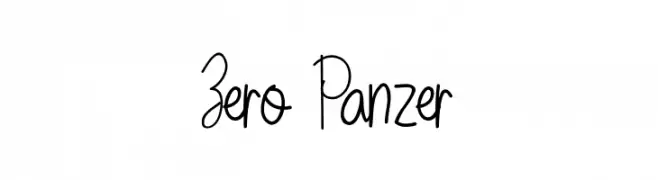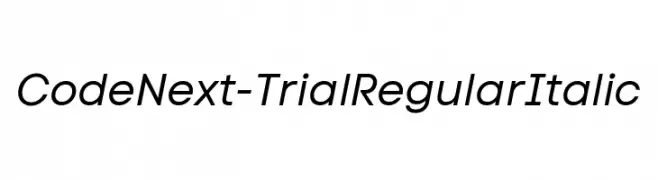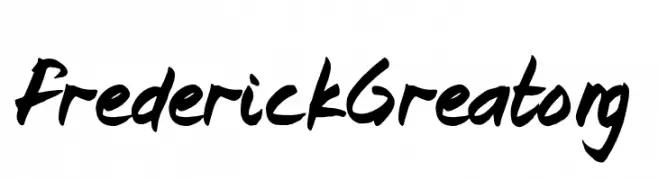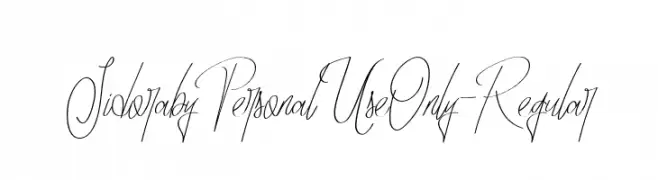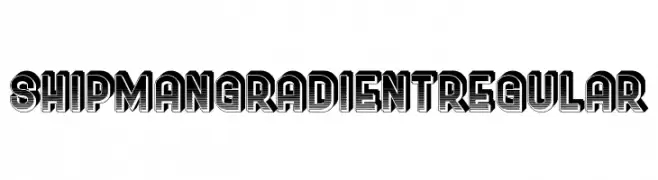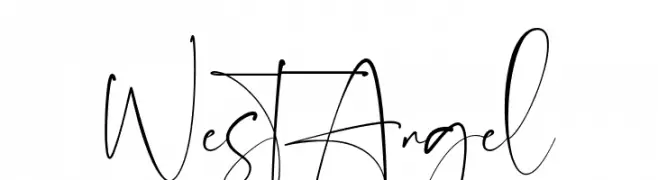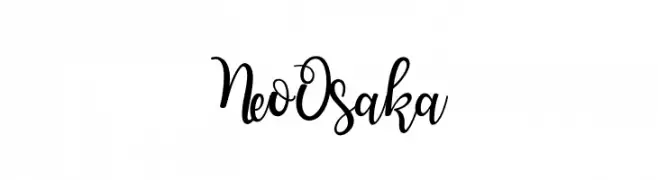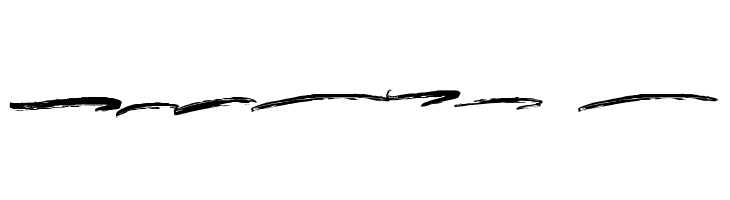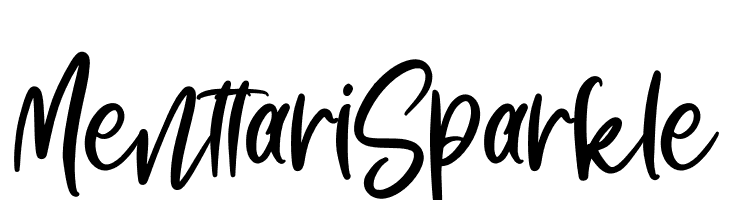
A playful, handwritten font with tall, narrow letters and whimsical strokes.
A bold, brushstroke font with a wild and energetic style.
A modern, italic sans-serif font with clean lines and a dynamic style.
A whimsical and decorative font with intricate curls and swirls.
A bold, handwritten font with expressive, dynamic strokes.
An elegant and flowing script font with intricate letterforms.
A bold, decorative font with a gradient effect for a 3D look.
A fluid and expressive handwritten font with a casual elegance.
A dynamic and flowing script font with elegant, cursive letterforms.
A bold, sketch-like handwritten font with dynamic strokes and artistic flair.